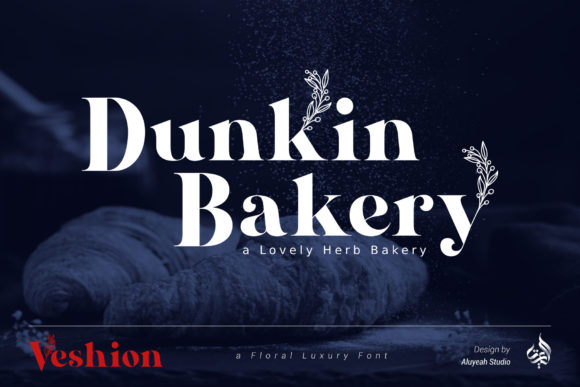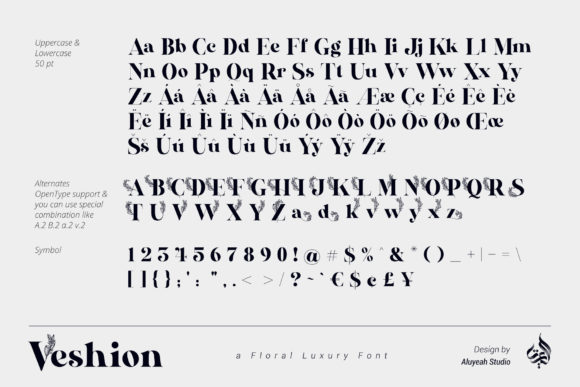
Introducing AL Veshion Font: The Ultimate Luxury Floral Font for Creative Projects
Are you a designer or crafter looking for a font that exudes luxury, playfulness, and elegance? Look no further than the AL Veshion Font. This stunning floral font is perfect for a wide range of creative projects, from wedding invitations to branding, packaging, and more.
What is AL Veshion Font?
AL Veshion Font is a beautifully crafted floral luxury font that is both fashionable and playful. Its unique and intricate design makes it perfect for adding a touch of elegance and sophistication to any project. Whether you’re working on a wedding invitation, a restaurant menu, or a social media post, this font is sure to make your design stand out.
Key Features of AL Veshion Font
- Floral Design: The AL Veshion Font features a stunning floral design that is both delicate and luxurious.
- Playful and Elegant: This font strikes the perfect balance between playfulness and elegance, making it suitable for a wide range of creative projects.
- Highly Versatile: Use AL Veshion Font for wedding invitations, branding, packaging, magazines, florist shops, social media, restaurant menus, greeting cards, headers, and much more.
Use Cases for AL Veshion Font
The AL Veshion Font is incredibly versatile and can be used for a wide range of creative projects, including:
- Wedding Invitations: Add a touch of elegance and sophistication to your wedding invitations with this stunning floral font.
- Branding and Packaging: Use AL Veshion Font to create luxurious branding and packaging for your business or product.
- Magazines and Editorial Design: Add a touch of glamour and sophistication to your magazine or editorial design with this beautiful font.
- Florist Shops and Garden Centers: Perfect for florist shops and garden centers, this font is sure to add a touch of elegance and whimsy to any design.
- Social Media and Restaurant Menus: Use AL Veshion Font to create eye-catching social media posts and restaurant menus that are sure to impress.
- Greeting Cards and Headers: Add a touch of luxury and sophistication to your greeting cards and headers with this stunning floral font.
Why Choose AL Veshion Font?
So why choose AL Veshion Font for your next creative project? Here are just a few reasons:
- Unique and Eye-Catching Design: This font features a unique and eye-catching design that is sure to make your project stand out.
- High-Quality and Professional: AL Veshion Font is a high-quality and professional font that is perfect for designers and crafters who want to create luxurious and sophisticated designs.
- Versatile and Flexible: Use AL Veshion Font for a wide range of creative projects, from wedding invitations to branding and packaging.
In conclusion, the AL Veshion Font is a stunning floral luxury font that is perfect for designers and crafters who want to add a touch of elegance and sophistication to their creative projects. With its unique and eye-catching design, high-quality and professional finish, and ease of use, this font is sure to become a favorite in your design arsenal. So why wait? Download AL Veshion Font today and start creating luxurious and sophisticated designs that are sure to impress.